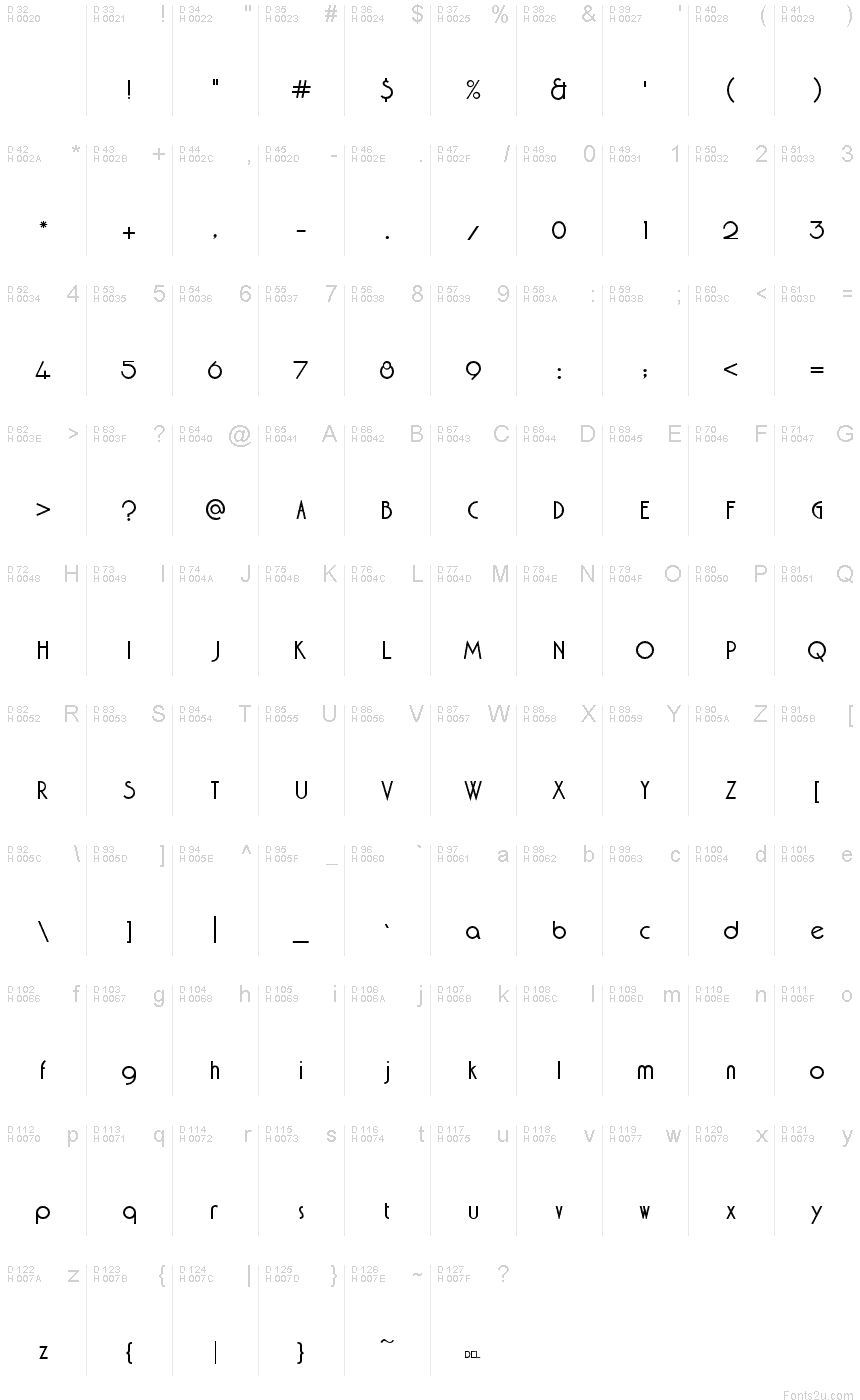
AGA Cordoba V2 B17 Bold, by Mohammad Alagha of Almedia Interactive Ltd., is a free display sans serif with tall proportions and sharply varied letter widths. Broad rounded forms alternate with needle-thin strokes, producing an airy silhouette that still feels deliberate. The spacing has a lively, uneven cadence.
As a visual centerpiece, it can turn a fashion logo or music poster into a piece of lettering rather than a neutral label. Its elegant tension also suits fragrance packaging and arts event graphics, where the changing widths can echo slender illustration or architectural lines. Magazine covers and cultural programs are another strong fit for its long, dramatic shapes.